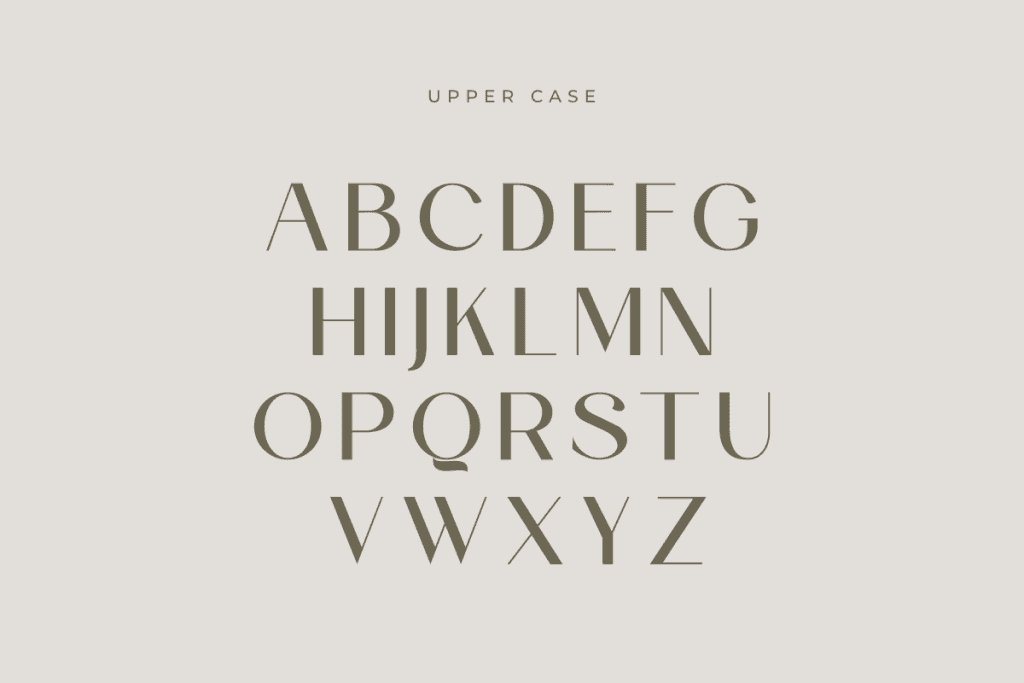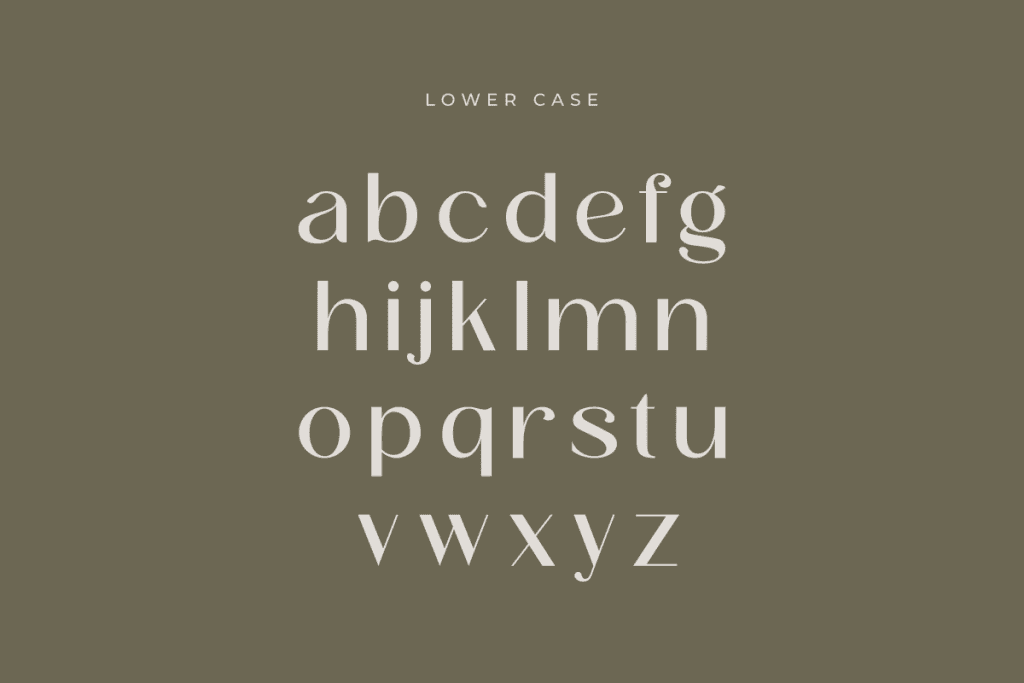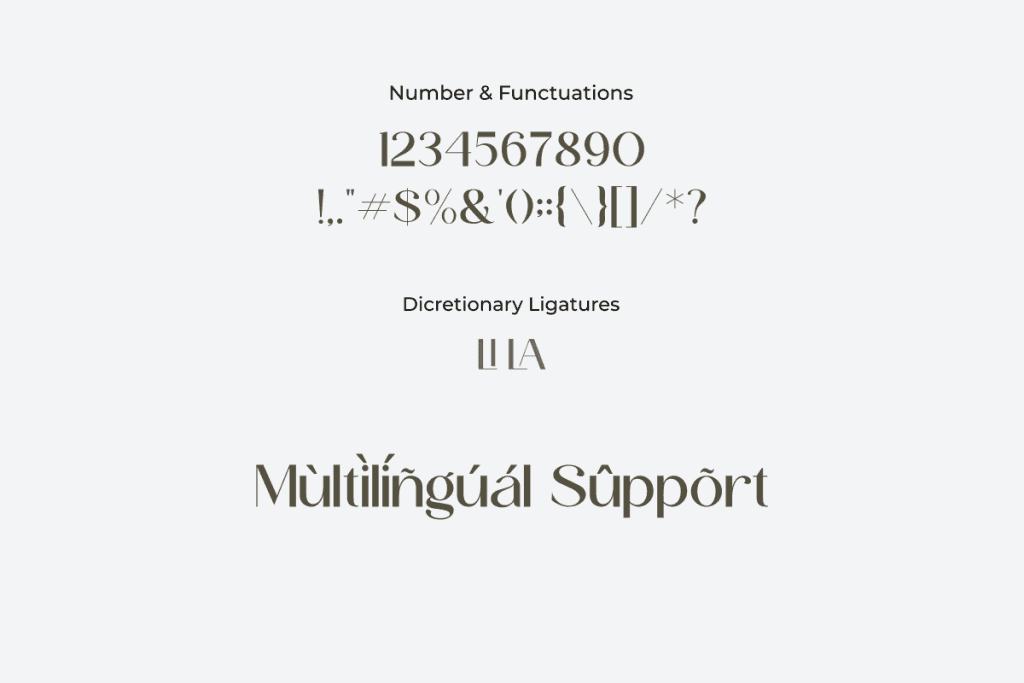
Arenta is an elegant contemporary font which exudes class. Boasting smooth lines and well-balanced ratios, Arenta can be used in multiple design projects from magazine layouts to web design. Furthermore, its modern yet elegant aesthetic ensures maximum readability across devices and text sizes.